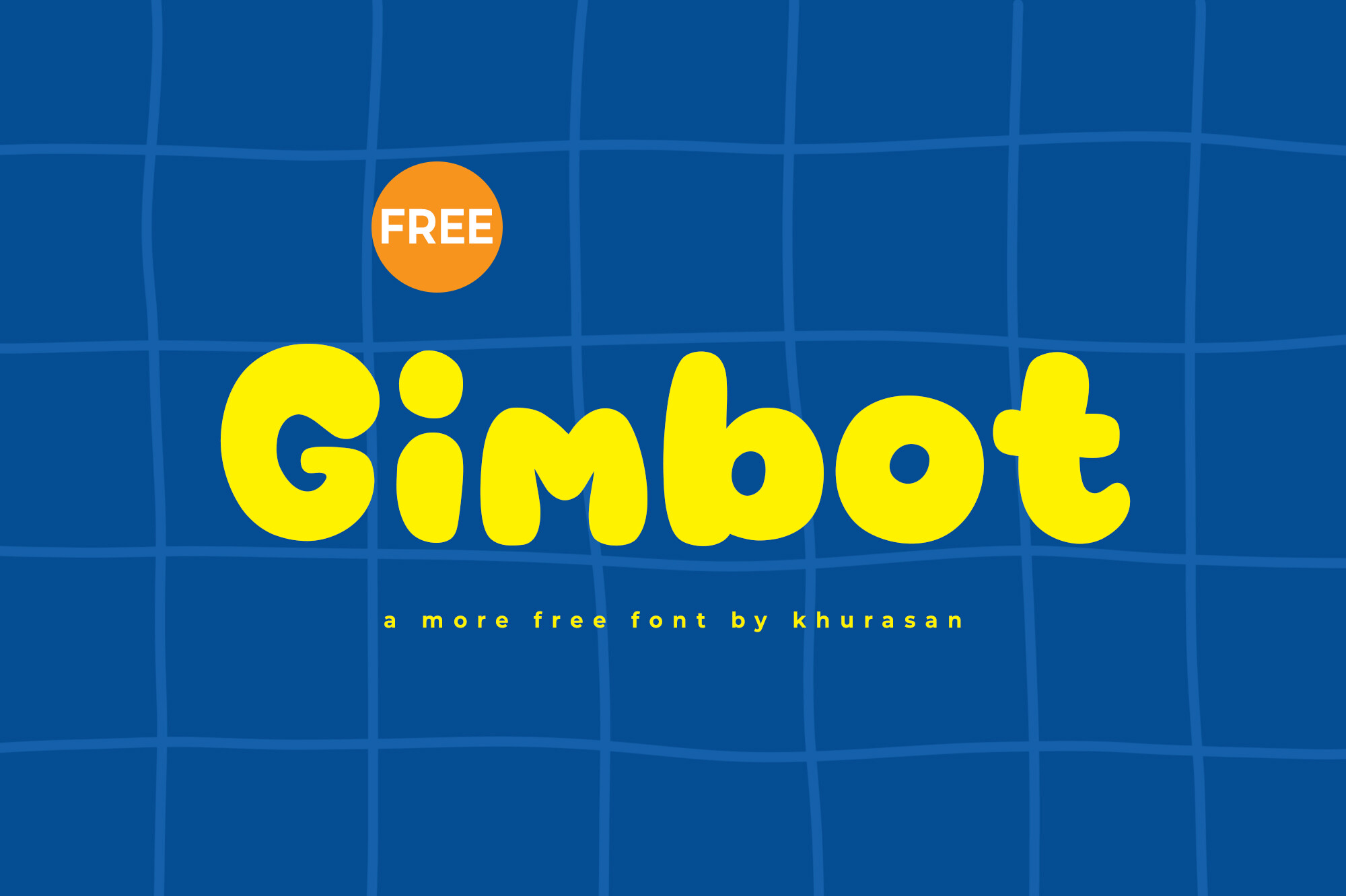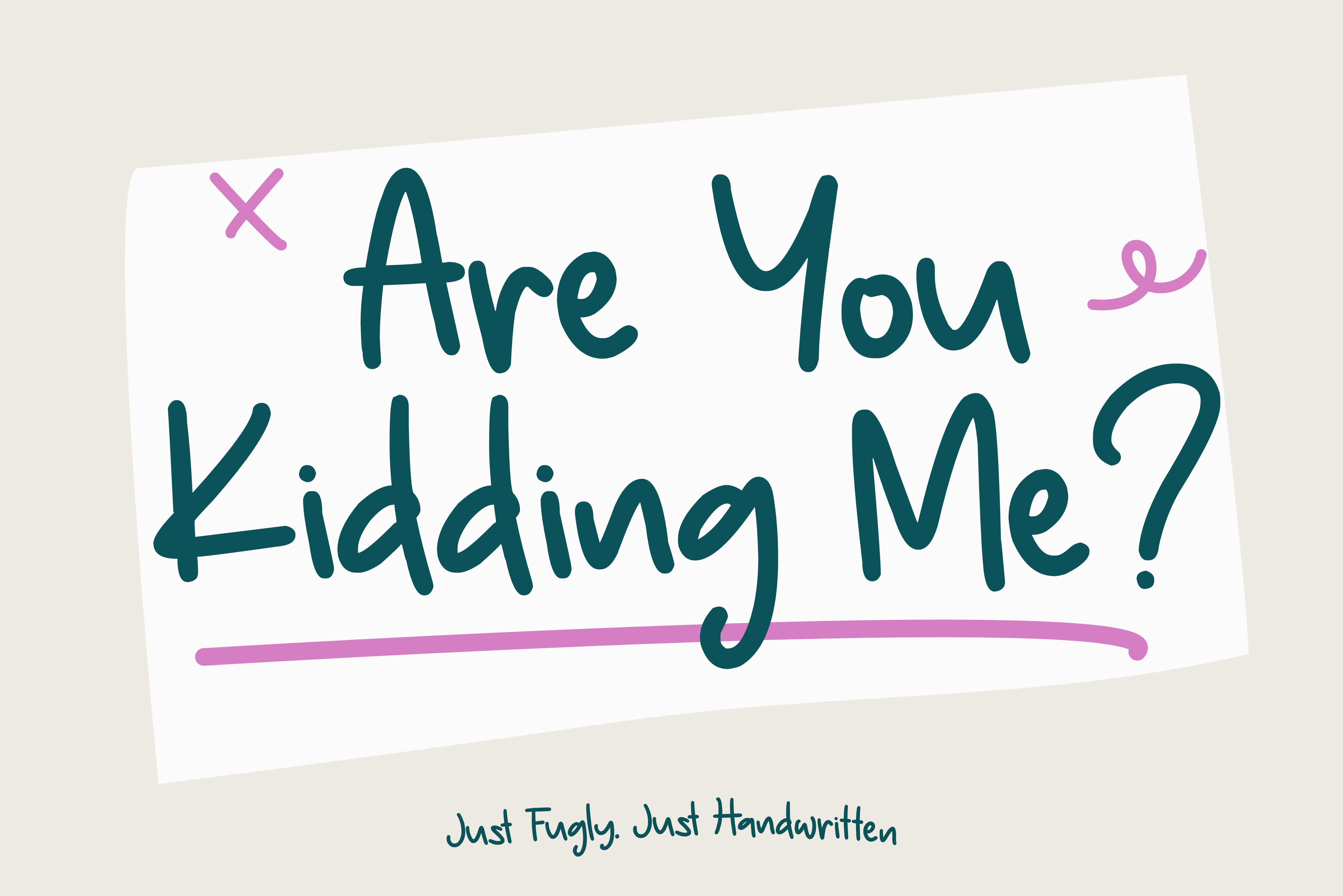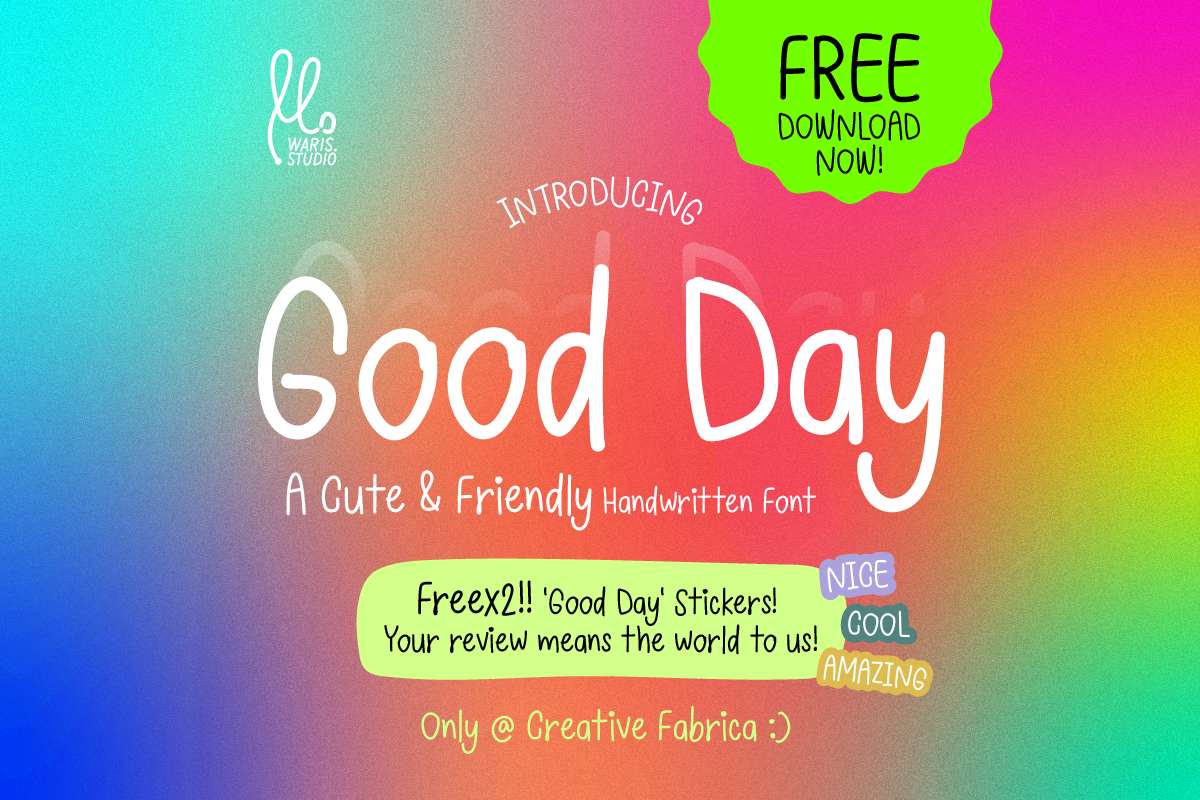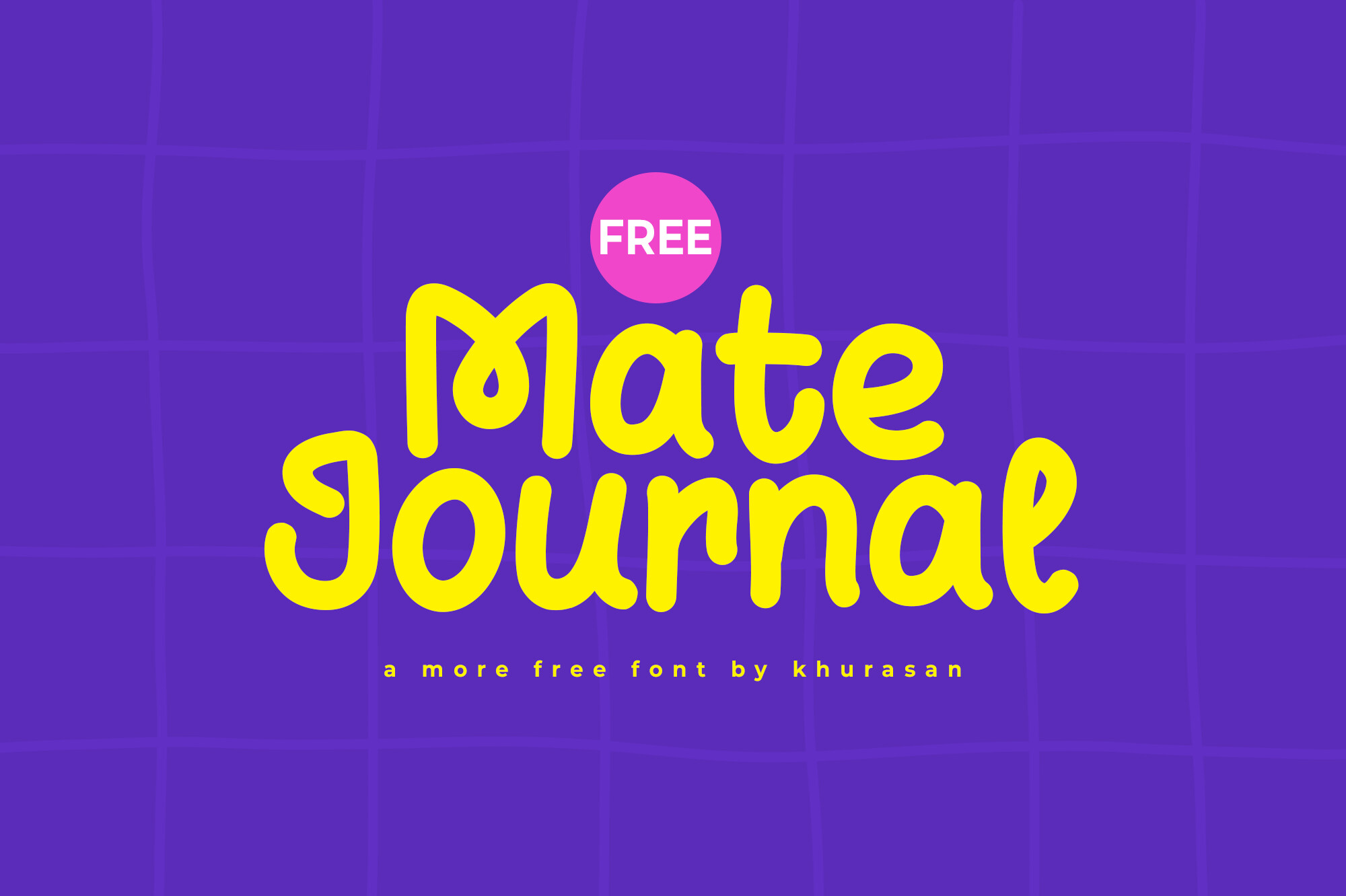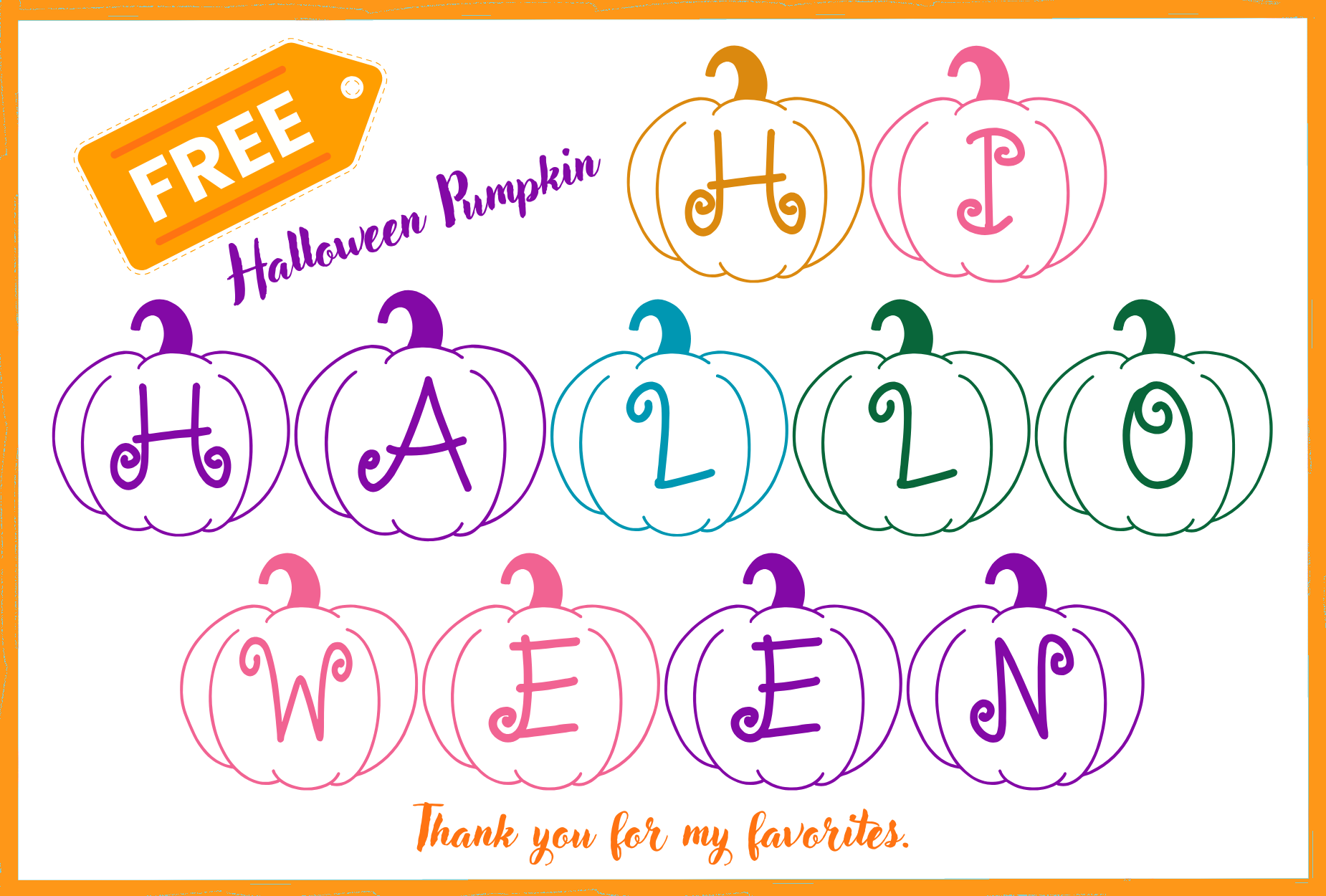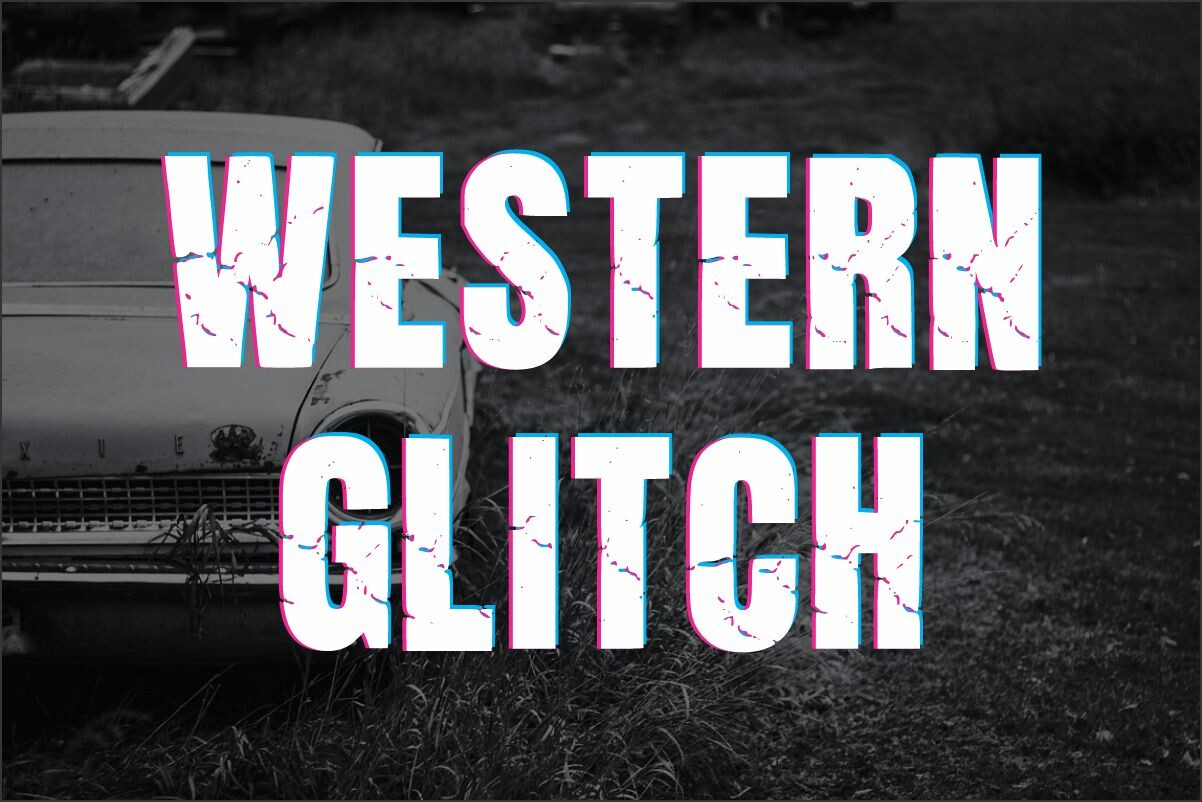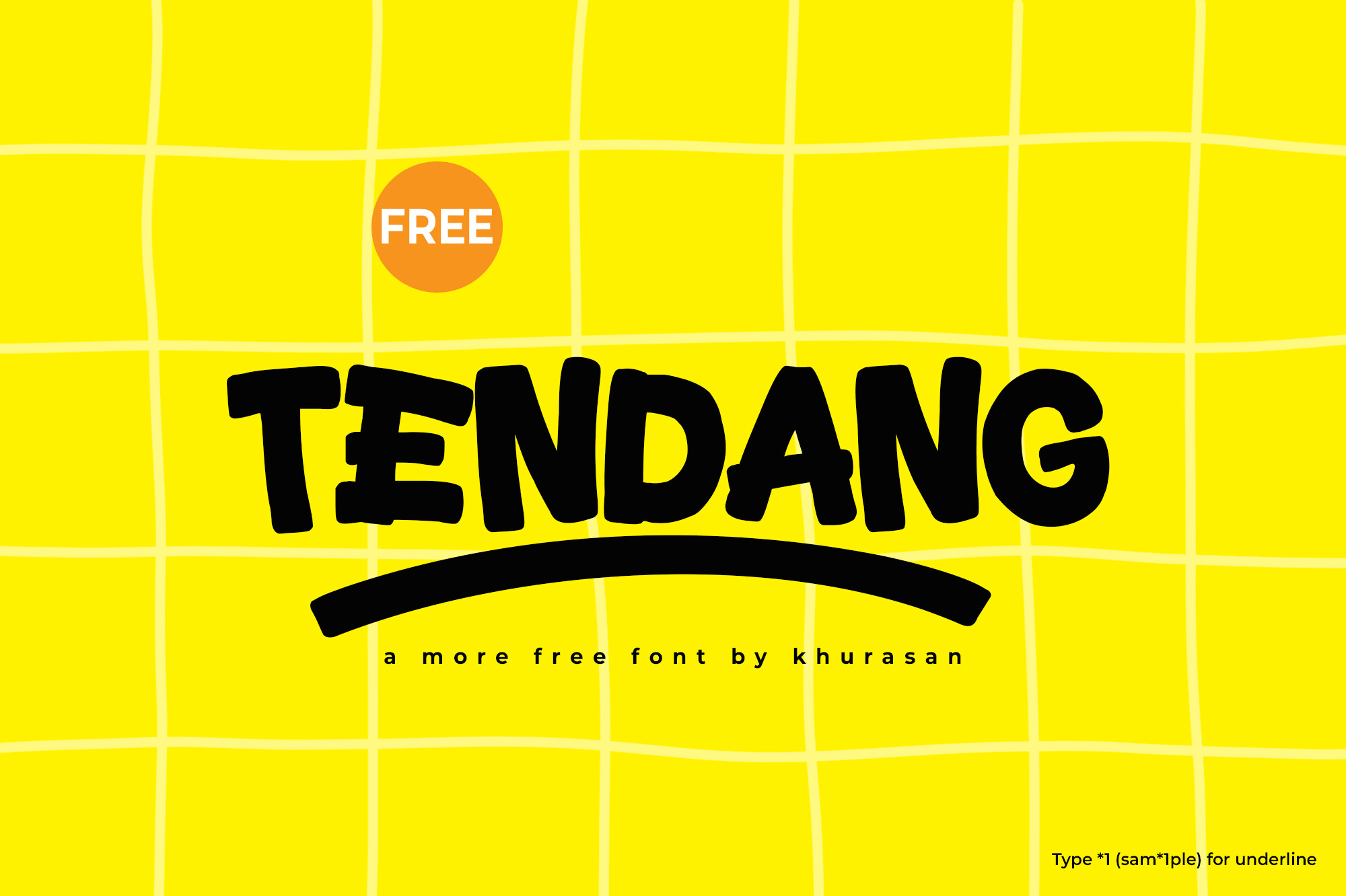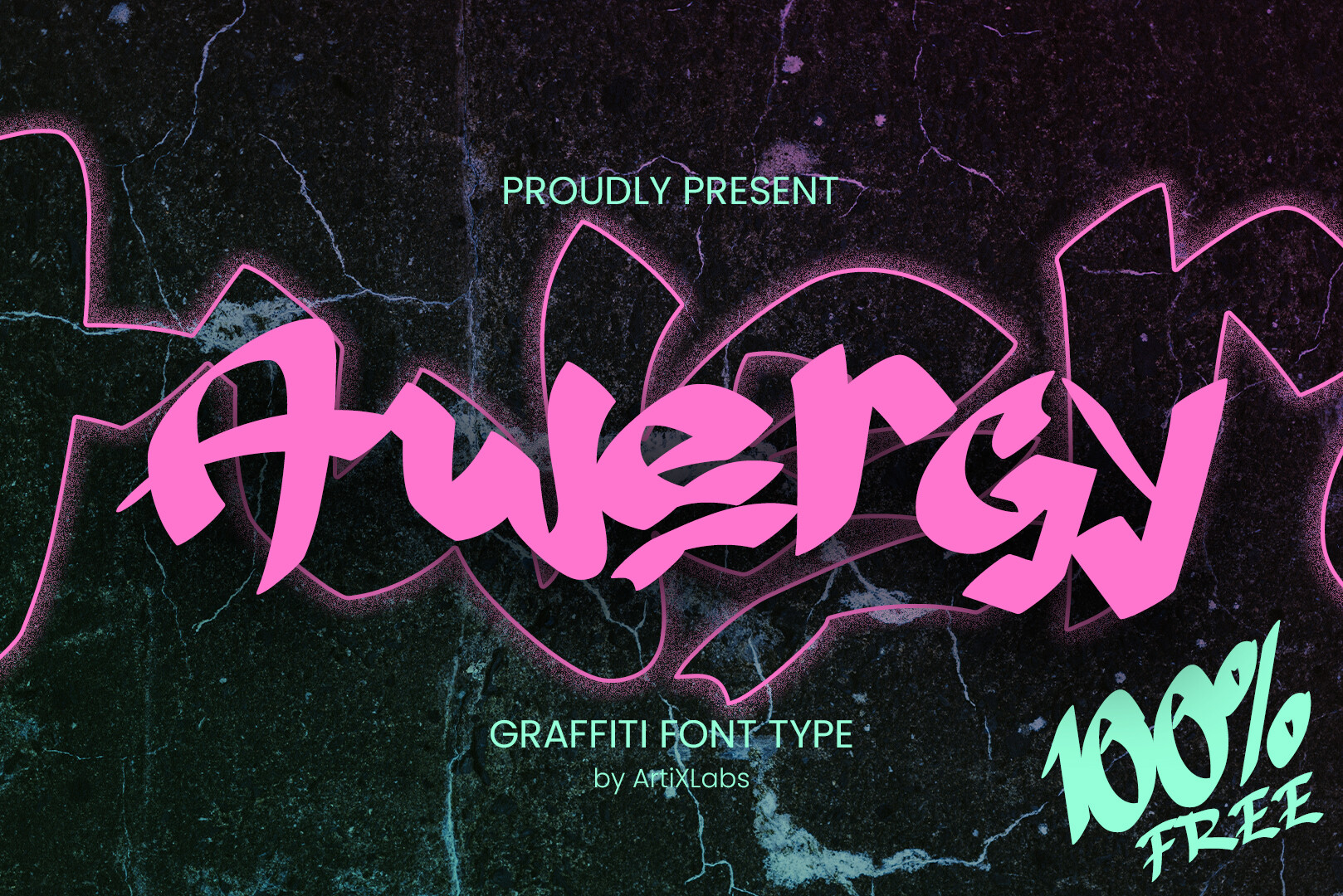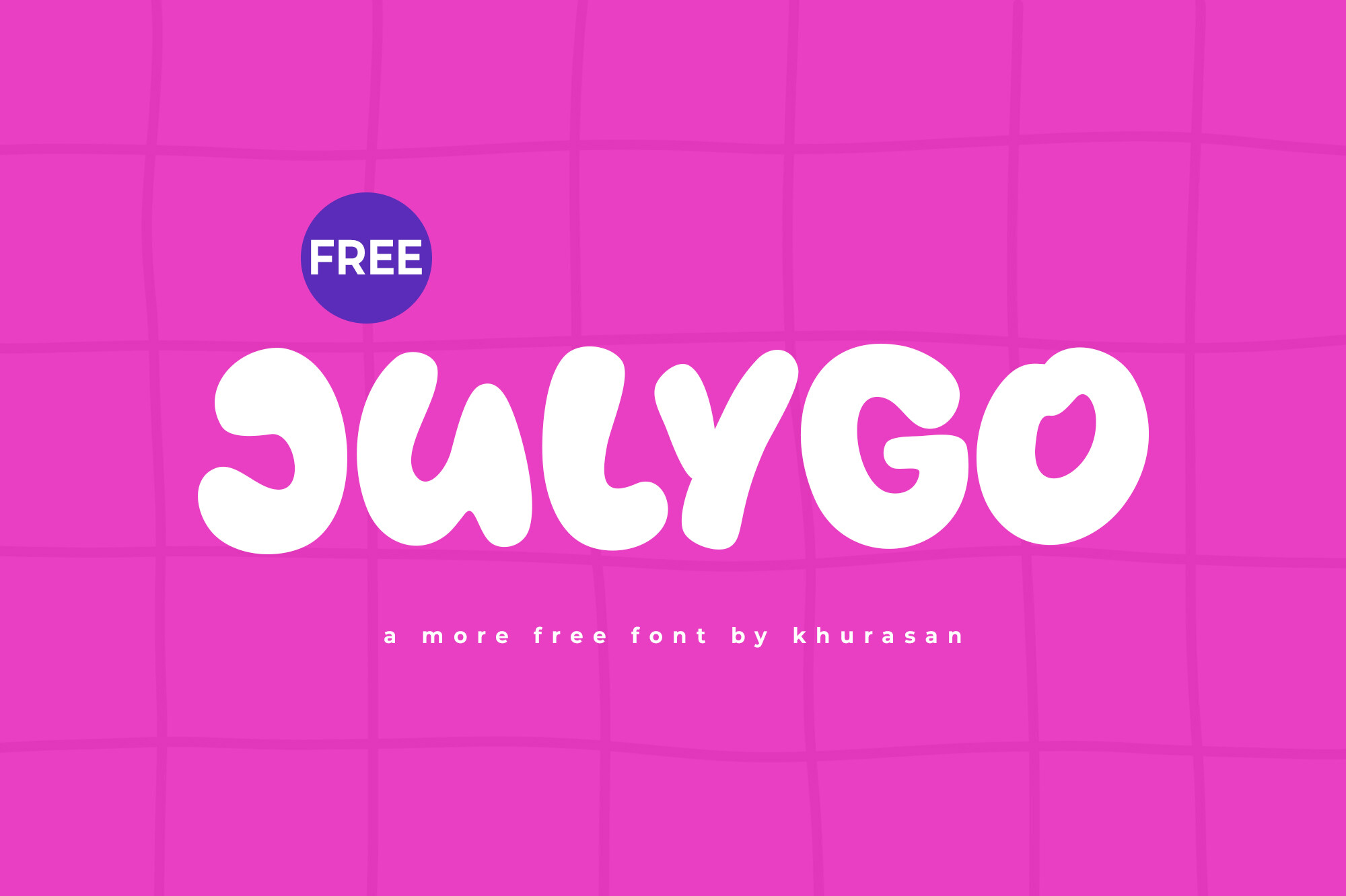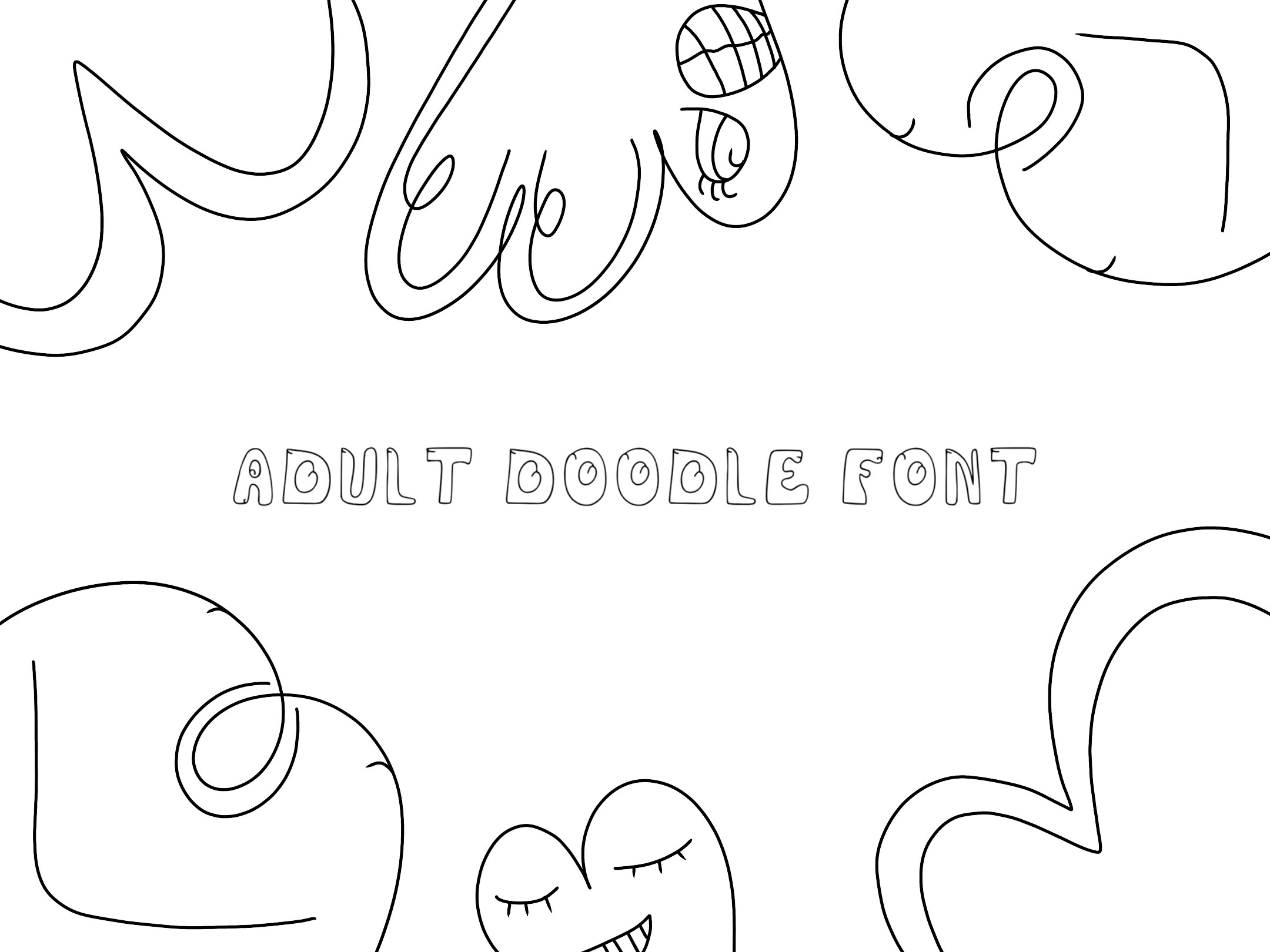
This week on Free Fonts Friday, we bring you a vibrant selection of unique and creative fonts that are available for free commercial use. Each font has been carefully curated to enhance your designs with personality and charm. From the whimsical Gimbot and the playful Are You Kidding Me to the charming Good Day and Mate Journal, each font offers a distinct style that can elevate your projects. Discover the fun Halloween Pumpkin font, the edgy Western Glitch, and the artistic Adult Doodle, along with more exciting options like Tendang and Julygo. Whether you're designing for personal or professional projects, these fonts are sure to inspire your creativity!
Gimbot
Gimbot is a delightful modern display font that brings a whimsical charm to a variety of designs. Its playful letterforms are perfect for posters, logos, and book covers, providing a fresh and engaging touch. Whether you're working on branding, invitations, or social media graphics, Gimbot’s versatility shines through, easily adapting to various projects. This font stands out with its unique character and is sure to make your creative ideas pop! Add Gimbot to your design toolkit and discover how it transforms your visual storytelling.
Are You Kidding Me
Are You Kidding Me is a fun and engaging handwritten font that brings a burst of personality to your designs. Its unique, casual style features rounded letters with playful strokes that mimic natural handwriting. The font captures spontaneity and creativity, making it perfect for quotes, social media posts, and light-hearted projects. With expressive shapes, such as the exaggerated 'K' and whimsical doodle accents, this font adds a joyful touch to any design. Embrace its charming imperfections and let your creativity flow with Are You Kidding Me.
Good Day
Good Day is a delightful handwritten font designed to brighten your designs with its cheerful and approachable style. This font captures the essence of casual, everyday handwriting, featuring rounded characters that are both friendly and easy to read. Its versatility makes it suitable for various creative projects, be it invitations, posters, or personal branding. With its warm and inviting appearance, Good Day adds a touch of personal charm to any design, ensuring that your message resonates with warmth and authenticity. Use this font to spread positivity in your creative endeavors!
Mate Journal
Mate Journal is a charming handwritten font that conveys a friendly and approachable vibe, making it ideal for a range of creative projects. Its modern, playful design features well-balanced letterforms that offer clarity and warmth, perfect for logos, posters, and other branding materials. This font excels in versatility, adapting seamlessly to both casual and formal contexts. Whether you're creating invitations or social media graphics, Mate Journal adds a personal touch to your designs, ensuring they stand out and resonate with your audience. Experience the joy of creativity with this delightful font!
Halloween Pumpkin
Get into the Halloween spirit with the Halloween Pumpkin Font! This whimsical typeface features each letter cleverly crafted within a pumpkin outline, making it perfect for festive decorations, classroom activities, and spooky invitations. Its playful, curly design adds a fun and lighthearted tone, ensuring it’s suitable for all ages. Whether you’re creating banners, crafts, or themed party invites, this font brings an element of joy and creativity to your Halloween celebrations. Best of all, it’s free, allowing you to spread cheer without breaking the bank!
Western Glitch
Western Glitch is an innovative font that merges elegance with a touch of casual flair, making it perfect for a wide array of design applications. Its glitch-inspired aesthetic adds a modern twist, ideal for product packaging, apparel, labels, and more. The font's unique style strikes a balance between boldness and sophistication, enabling it to stand out while remaining approachable. Whether you're designing for a trendy brand or creating eye-catching visual content, Western Glitch is a versatile choice that enhances your projects with its distinct character and charm.
Tendang
Tendang is a captivating display font that combines modern aesthetics with a charming flair, making it an excellent choice for various design needs. Its playful letterforms are ideal for posters, branding, and creative projects, allowing you to express your unique style. This font’s versatility ensures it complements a broad range of themes, whether you're working on a casual event or a more polished presentation. With Tendang, you can elevate your designs and leave a lasting impression on your audience with its dynamic and engaging appearance.
Awergy
Awergy is a striking graffiti font that stands out with its bold and artistic flair. This unique typeface is designed to elevate your creative projects, whether you're crafting posters, street art, or any design that calls for an edgy, urban vibe. With its dynamic letterforms and expressive style, Awergy captures the essence of street culture while remaining versatile for various applications. This font is perfect for those looking to make a statement and infuse their designs with an unmistakable character that resonates with creativity and individuality.
Julygo
Julygo is a playful and modern display font that adds a touch of whimsy to your designs. Its cheerful letterforms are perfect for posters, banners, and branding projects, providing an engaging and inviting look. This font's versatility allows it to adapt to a variety of contexts, whether for casual or more formal applications. With Julygo, you can create eye-catching visuals that resonate with your audience and convey a sense of fun. Make your designs memorable with this delightful font, which is sure to bring your creative ideas to life.